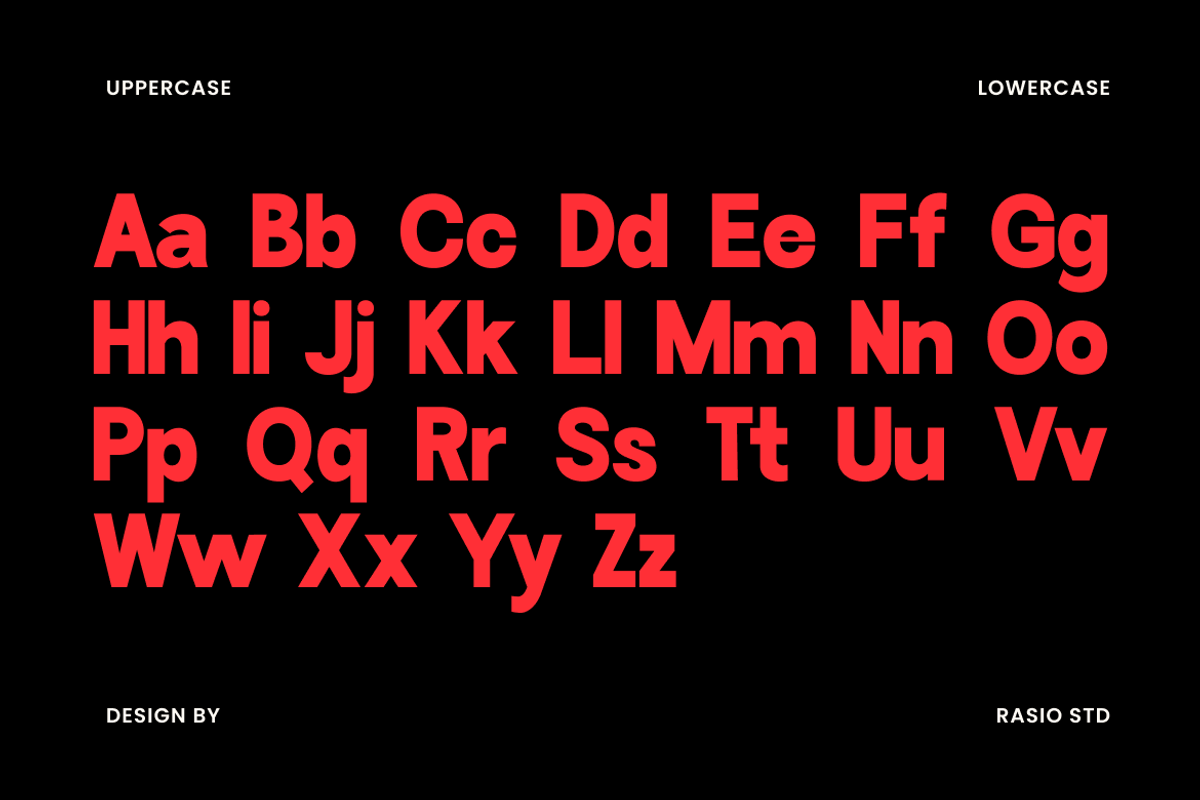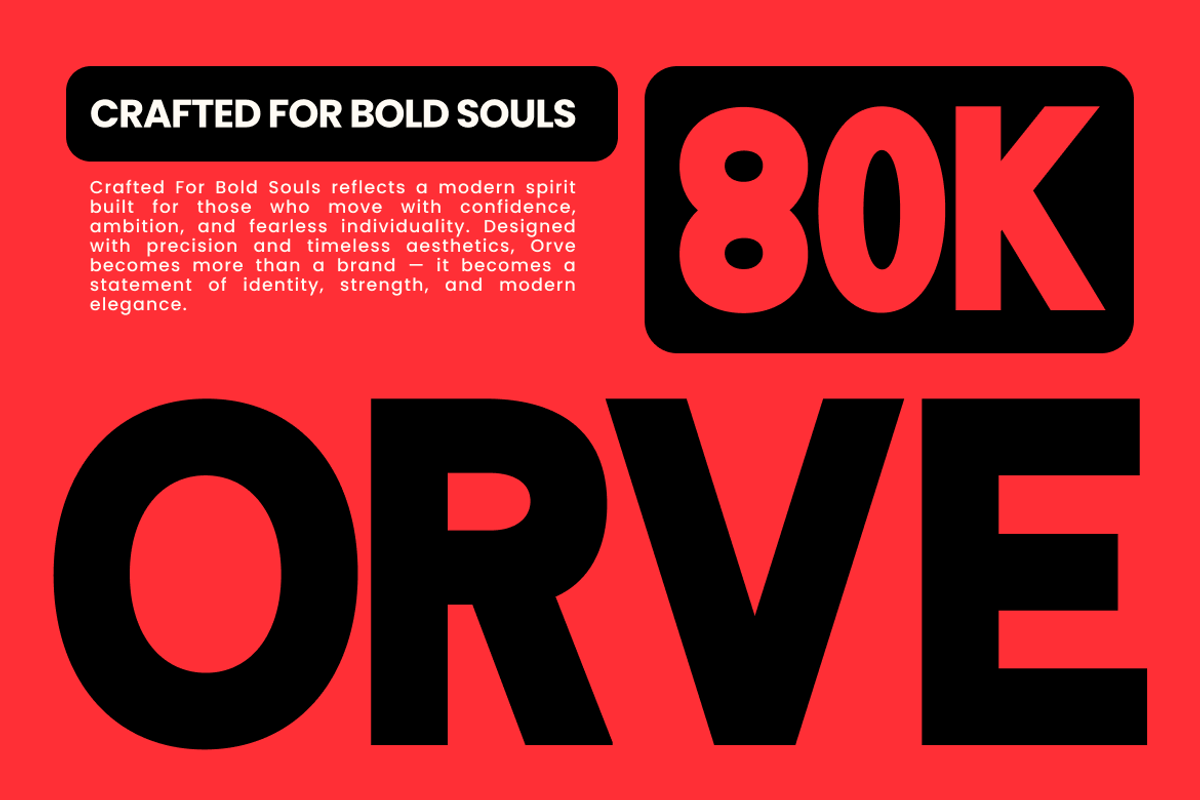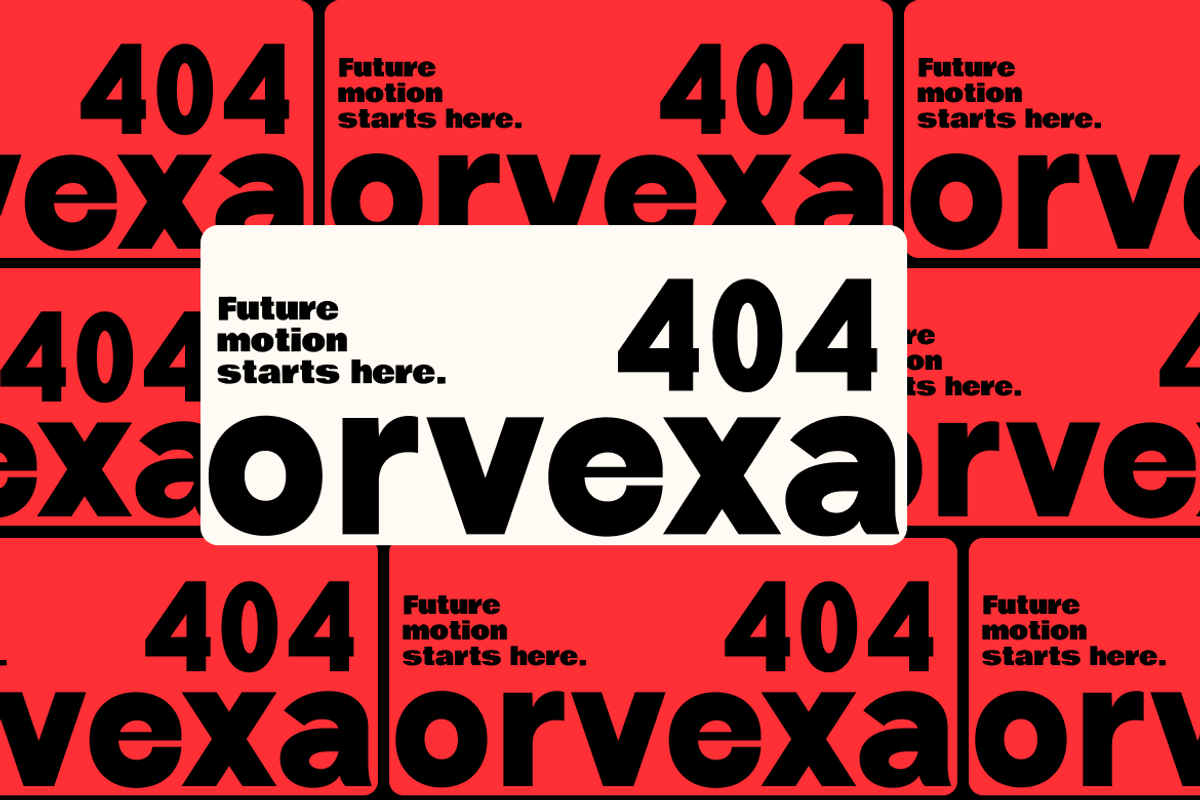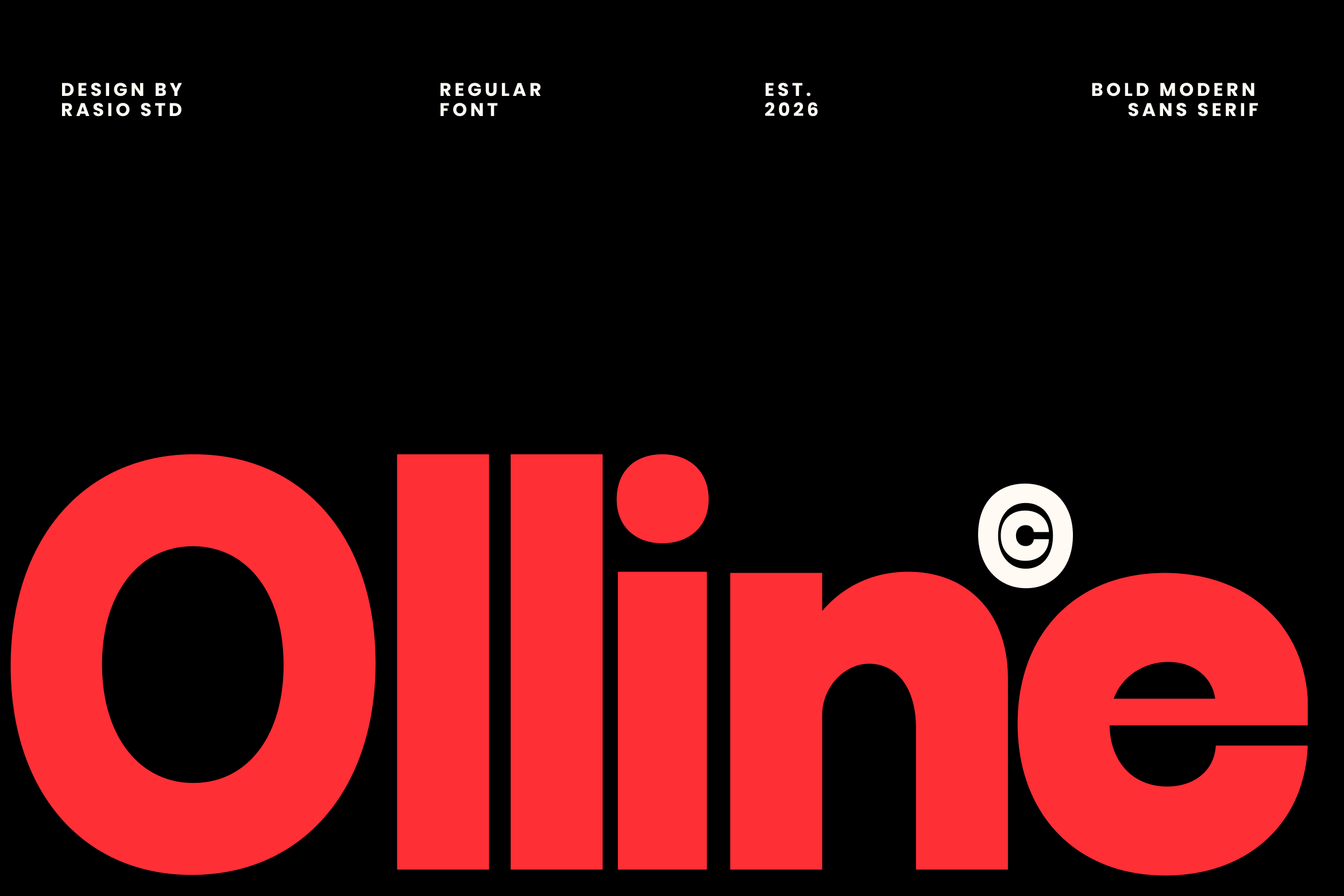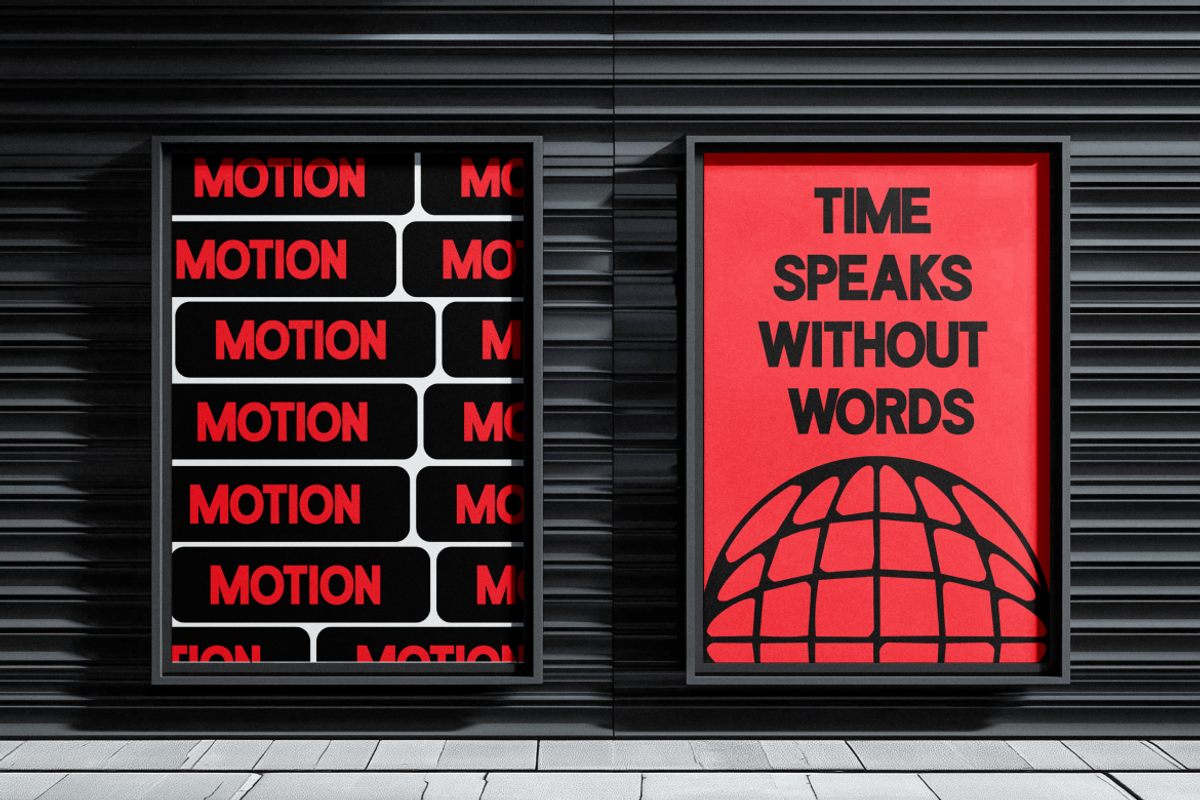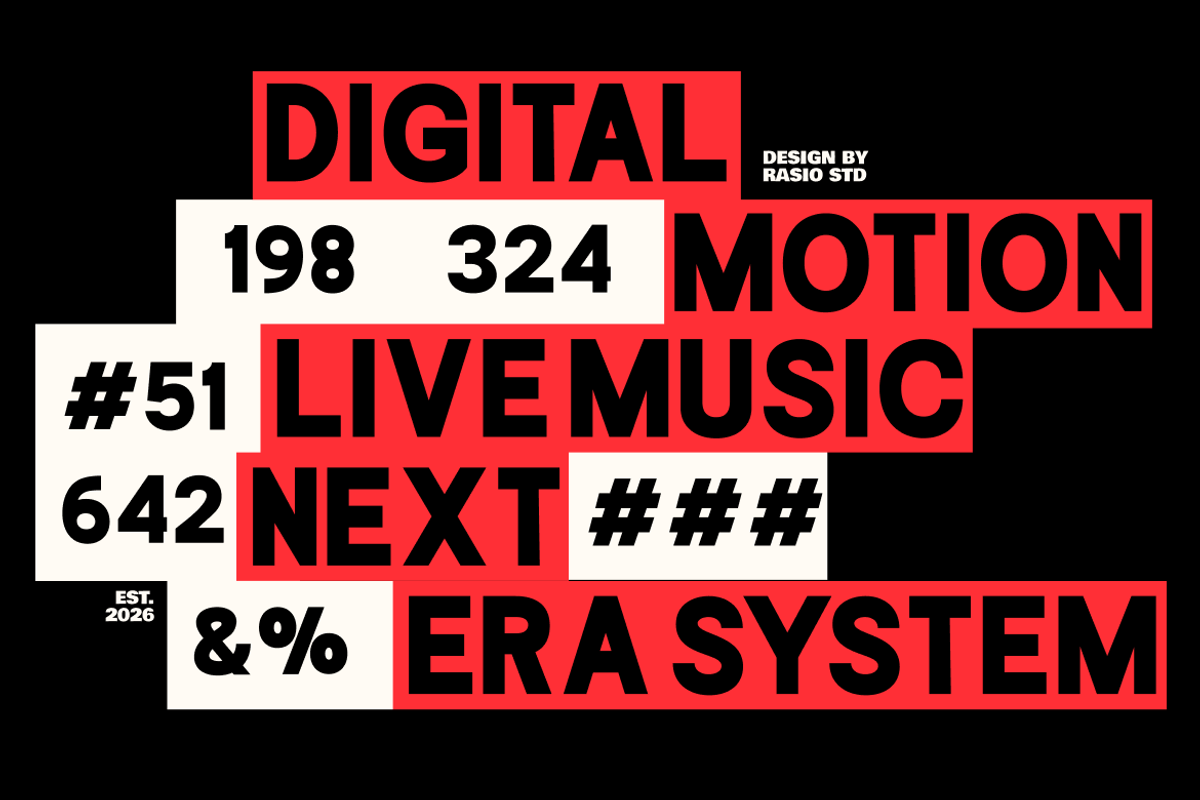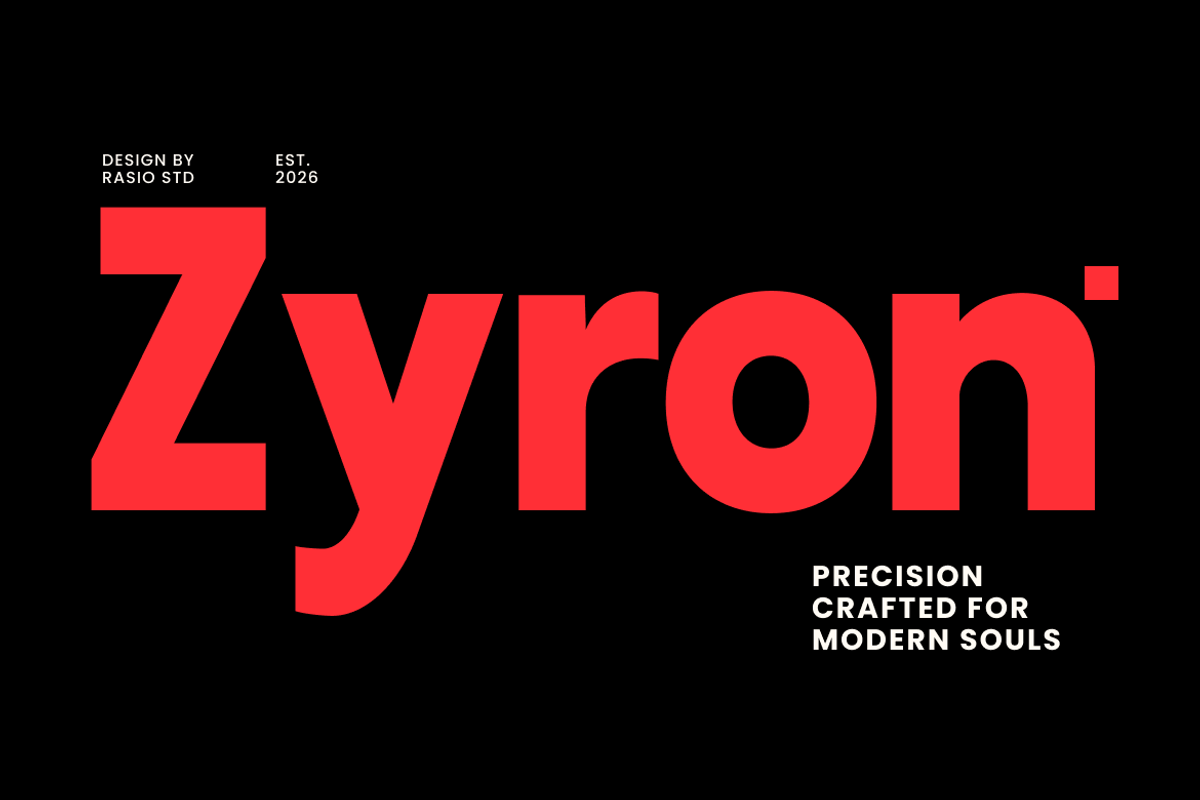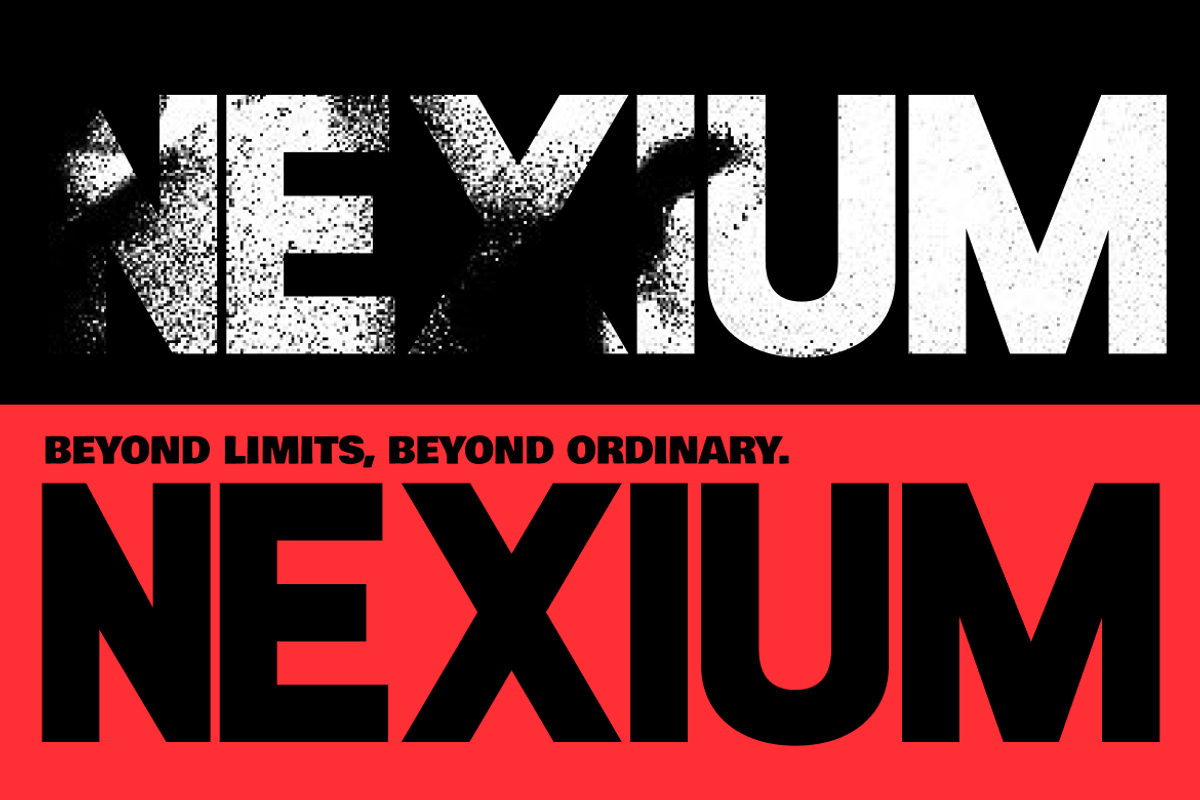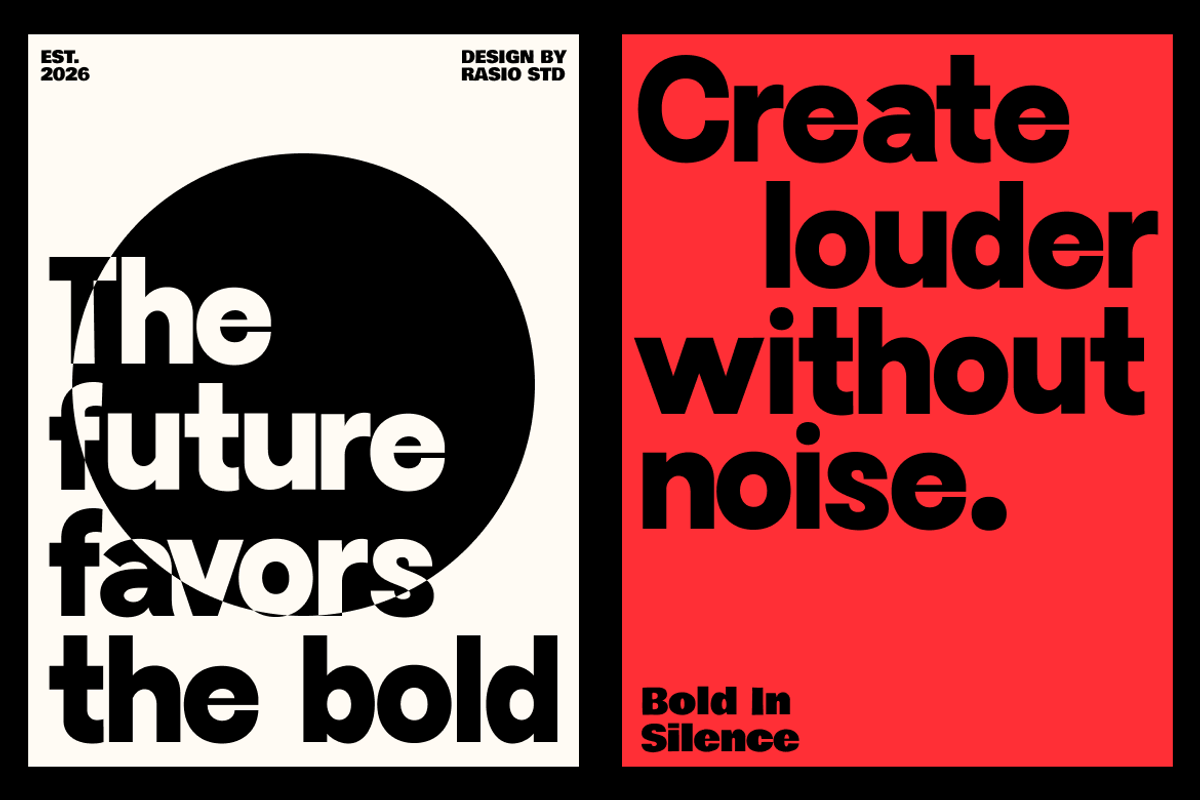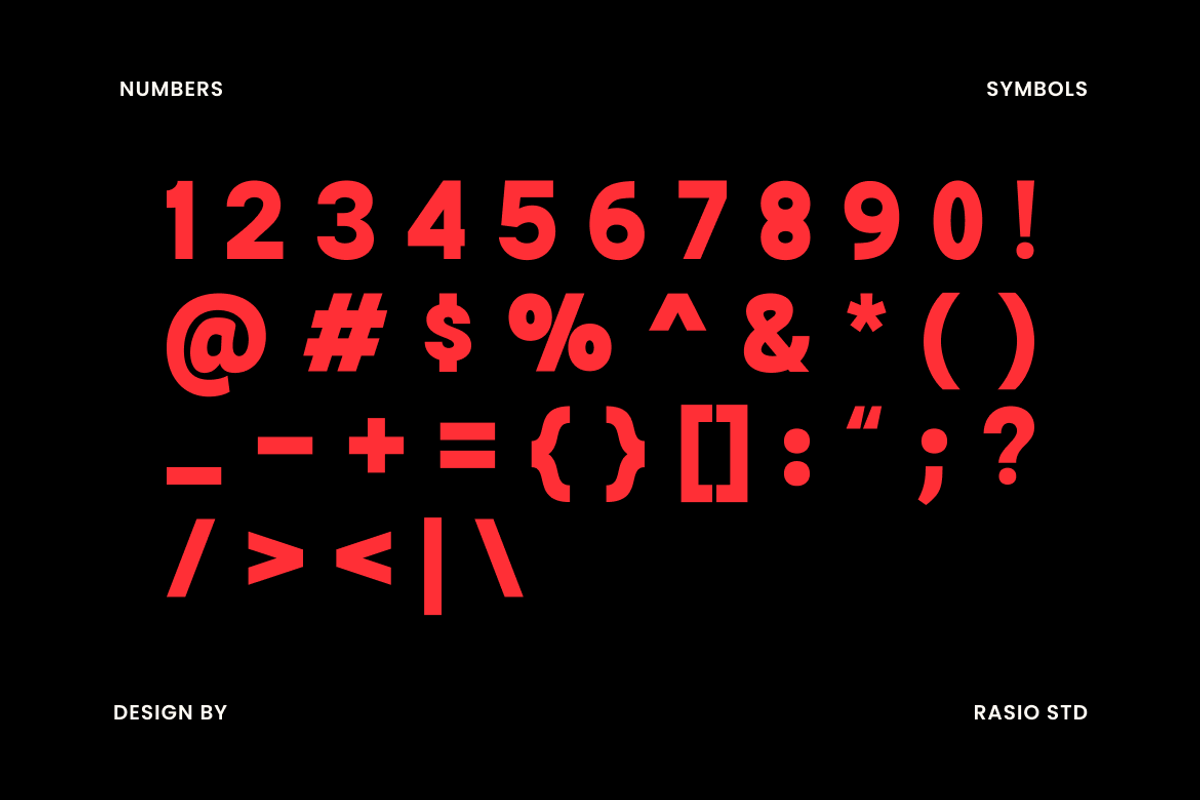
Olline Bold Modern Sans Serif Font
Olline is a bold modern sans serif font with strong geometric construction, clean curves, and powerful visual presence. The typeface features uppercase, lowercase, numerals, punctuation. Crafted for impactful headlines and contemporary branding. Its thick strokes and minimal structure create a confident modern aesthetic while maintaining excellent readability across digital and print layouts. Designed for modern creative projects, Olline delivers a sleek and professional typographic style with bold personality.
Relevance & Use Cases is highly relevant for modern branding, corporate identity, editorial headlines, technology campaigns, posters, packaging, website headers, and digital advertising. Its bold geometric style makes it perfect for projects that require a clean, confident, and contemporary visual impact.
Bold geometric sans serif with clean modern construction
Thick rounded corners for a strong and friendly appearance
Uniform stroke weight with solid visual consistency
Wide proportions and balanced spacing for impactful headlines
Minimal futuristic styling with high readability and bold presence
Bold branding and modern logo design with strong visual impact
Tech posters, gaming titles, and futuristic promotional graphics
UI/UX headers for apps, digital products, and startup campaigns
Social media content and advertising layouts with bold typography
Packaging, merchandise, and streetwear visuals with modern energy
Screen-optimized kerning for responsive web design
Supports numerals, punctuation, and extensive symbol set
Power your visuals with Olline, a bold modern sans serif built for striking headlines